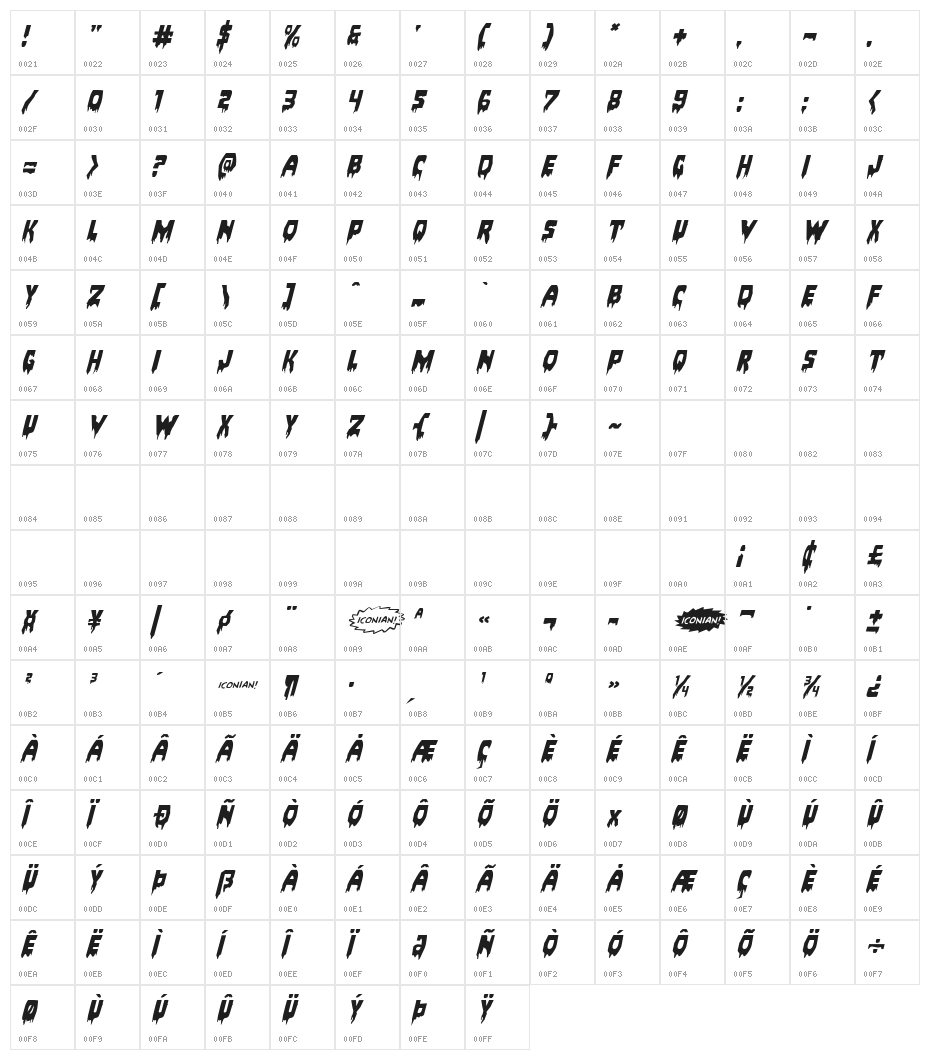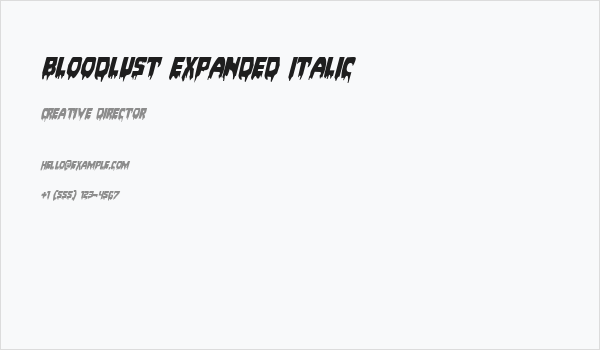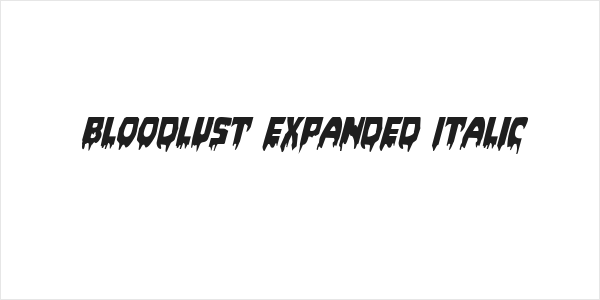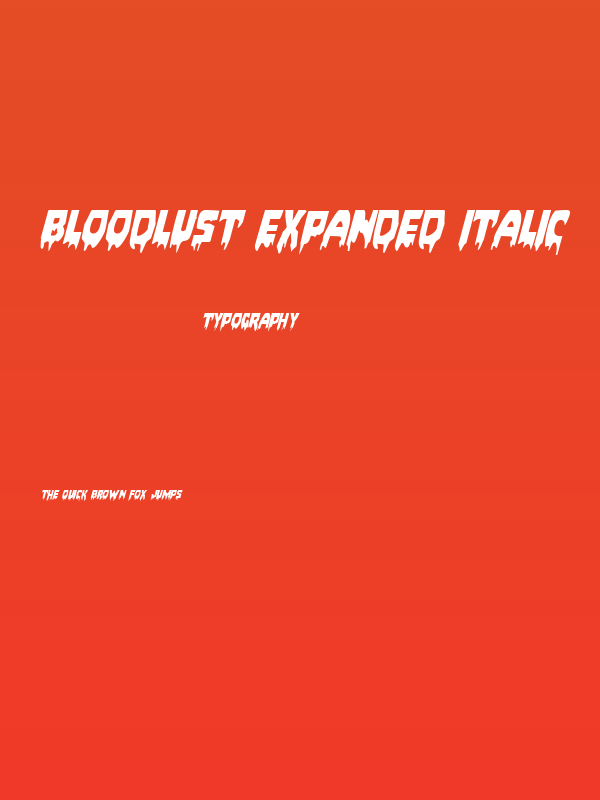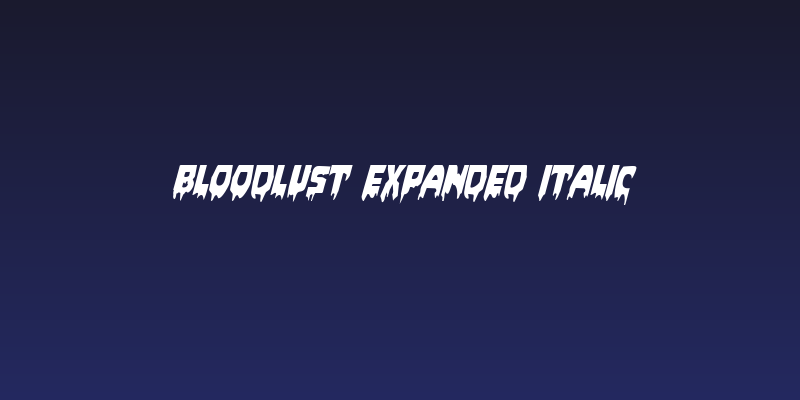
Bloodlust Expanded Italic Font
Bloodlust Expanded Italic Description
This font features a bold and dramatic style, characterized by its jagged, dripping edges that evoke a sense of horror and suspense. The letters are sharply angled, giving them a dynamic and aggressive appearance. The expanded width enhances its presence, making it ideal for impactful designs. The italic slant adds a sense of motion, further emphasizing its energetic and intense nature. This font is perfect for projects that require a strong, eye-catching aesthetic, such as horror-themed posters, Halloween invitations, or any design that aims to convey a sense of thrill and excitement.
| Proposed Projects | Ideal for horror-themed posters, Halloween invitations, and thrilling design projects. |